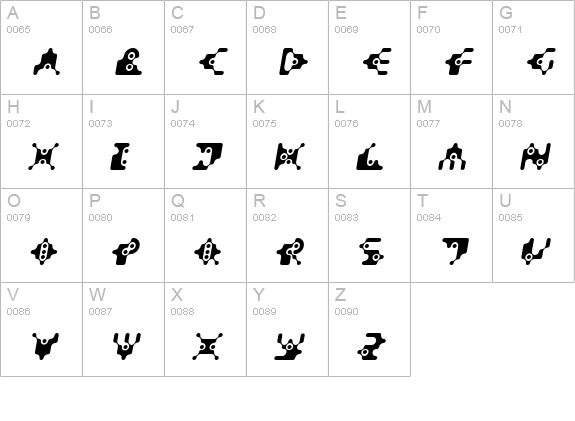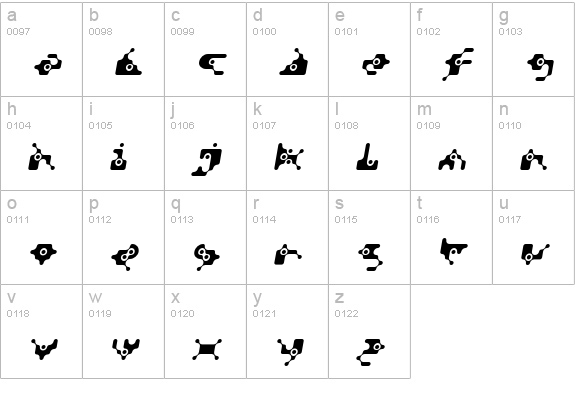
DigitalWaste-Oblique Font Details
DigitalWaste-Oblique is a distinctive, italic variant in the DigitalWaste typeface family \xE2\x80\x94 well suited to design and typography projects.
DigitalWaste-Oblique font is a dynamic and modern typeface that exudes a sense of innovation and forward-thinking design. Its sleek and stylish oblique style adds a touch of sophistication to any project, making it perfect for branding, headlines, and editorial design. What makes DigitalWaste-Oblique font even more appealing is that it is available for free download at FontsMarket.com. This means that you can easily access and use this striking font in your work without any cost. With its unique blend of contemporary aesthetics and versatility, DigitalWaste-Oblique font is sure to make a bold statement in any design project.